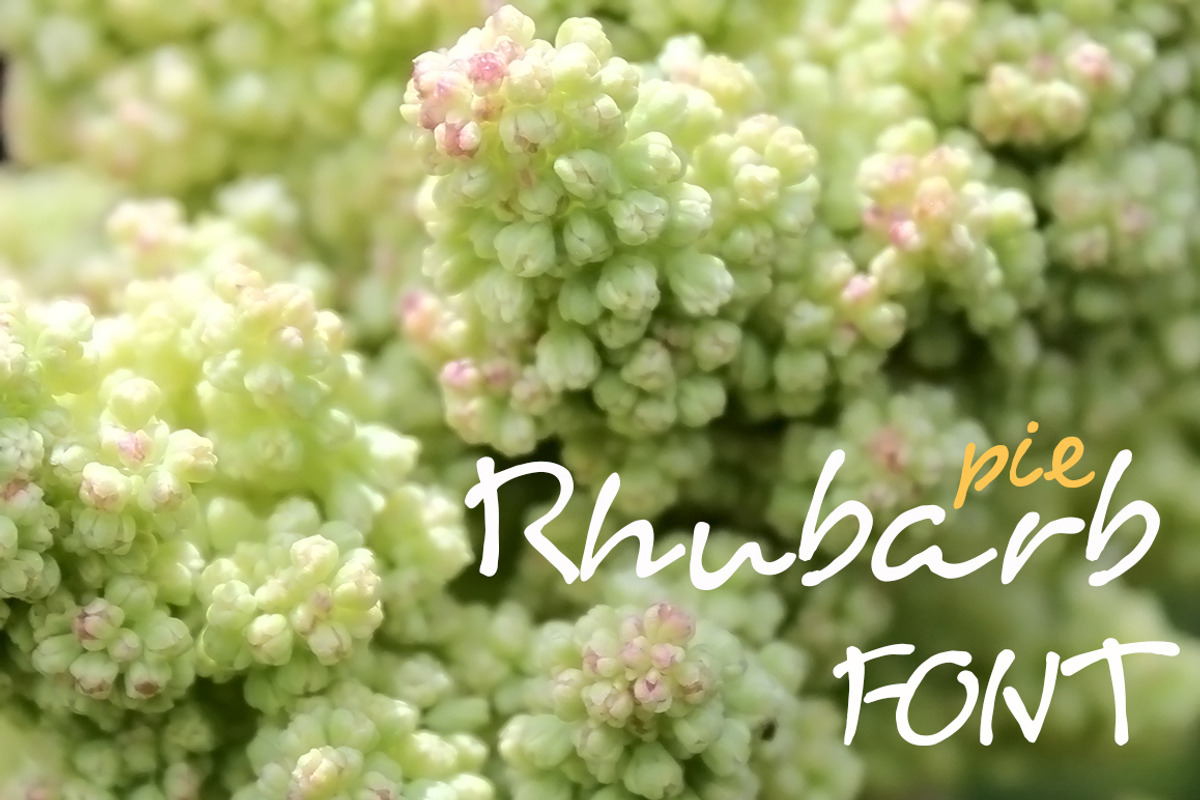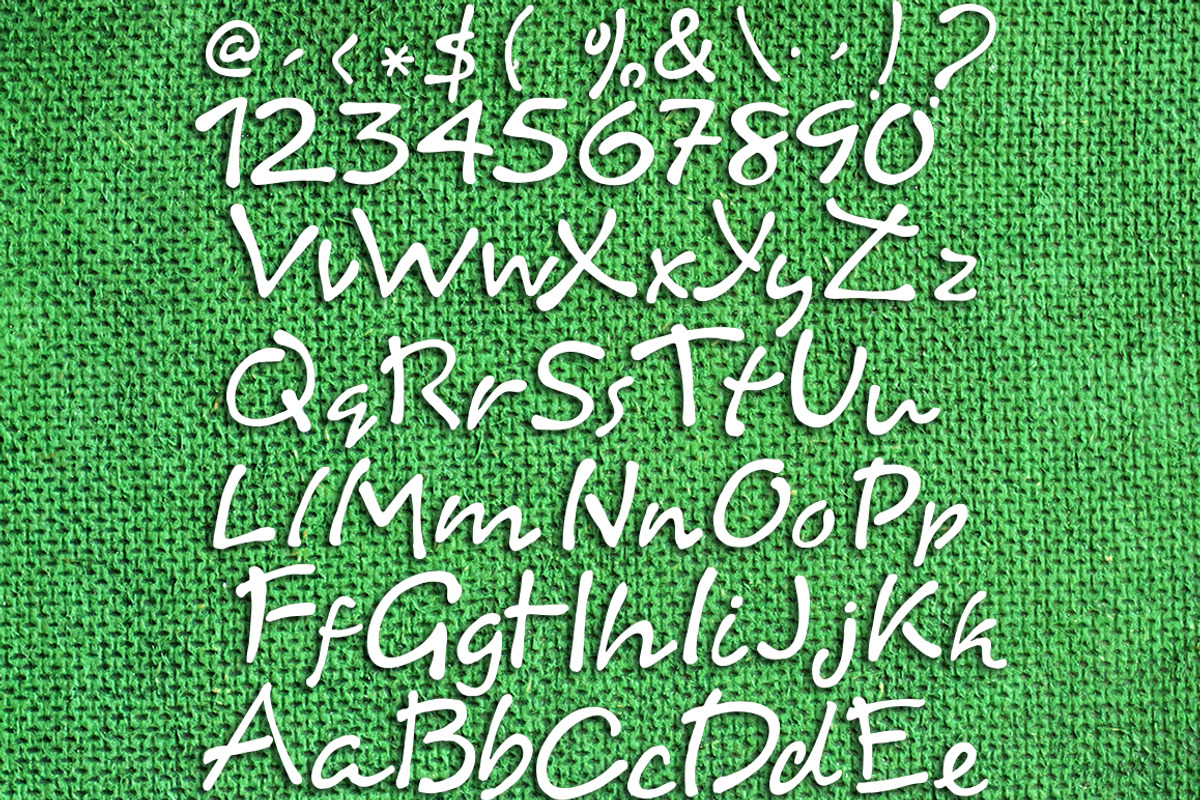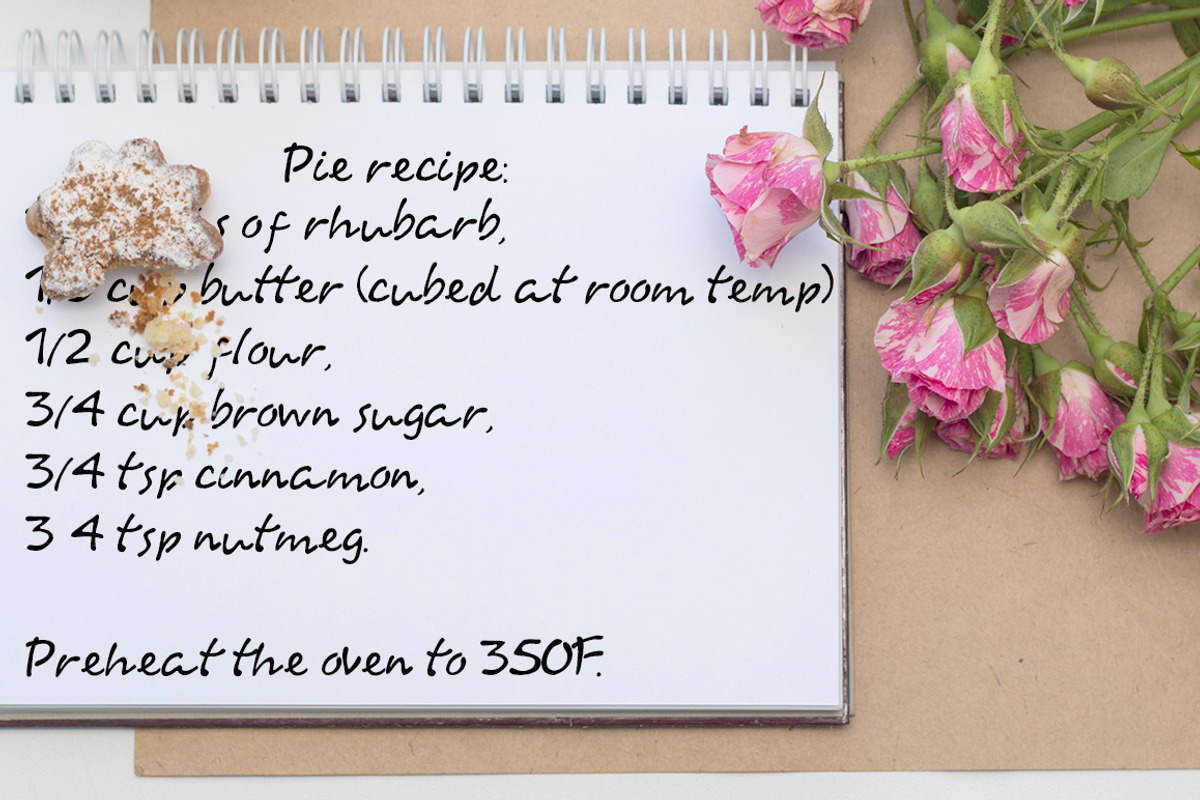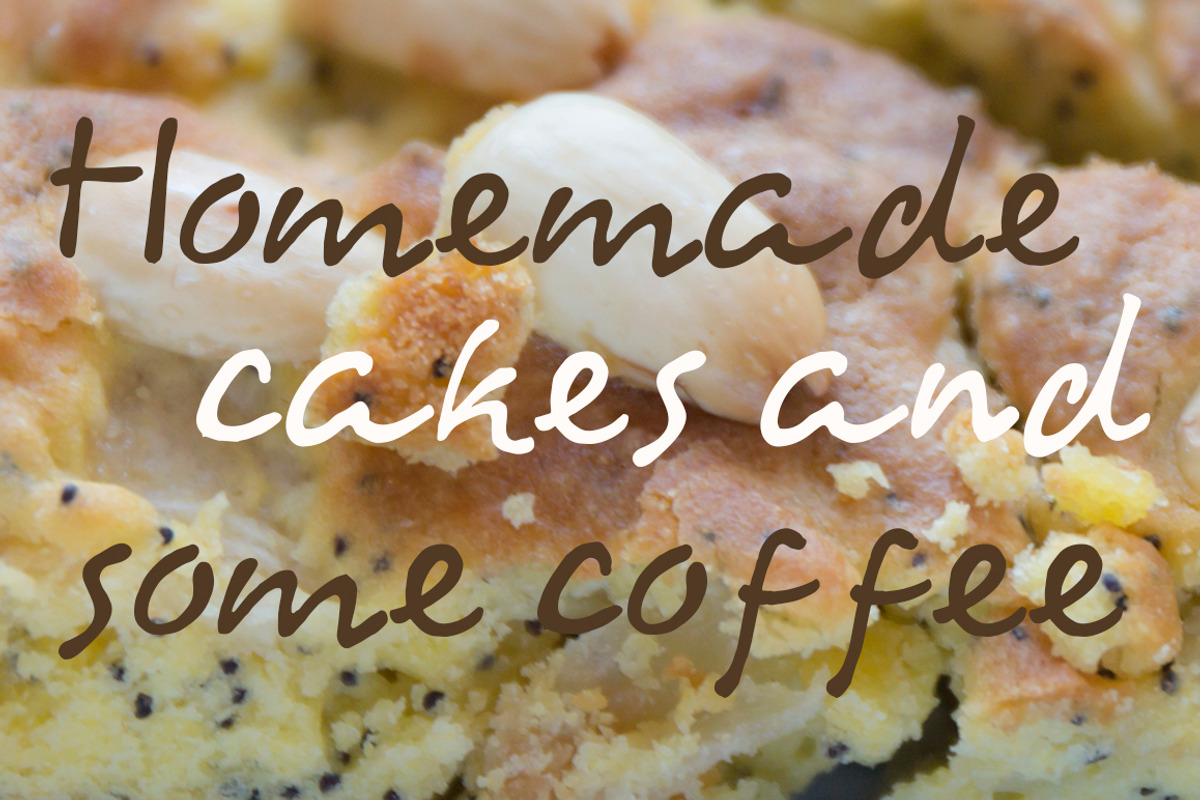
Rhubarb pie font
Rhubarb pie font by Ana Babii is a font selected for branding, posters, packaging, typography.
Why Rhubarb pie font is worth a look
Rhubarb pie font by Ana Babii fits naturally into Branding, posters, packaging, typography.